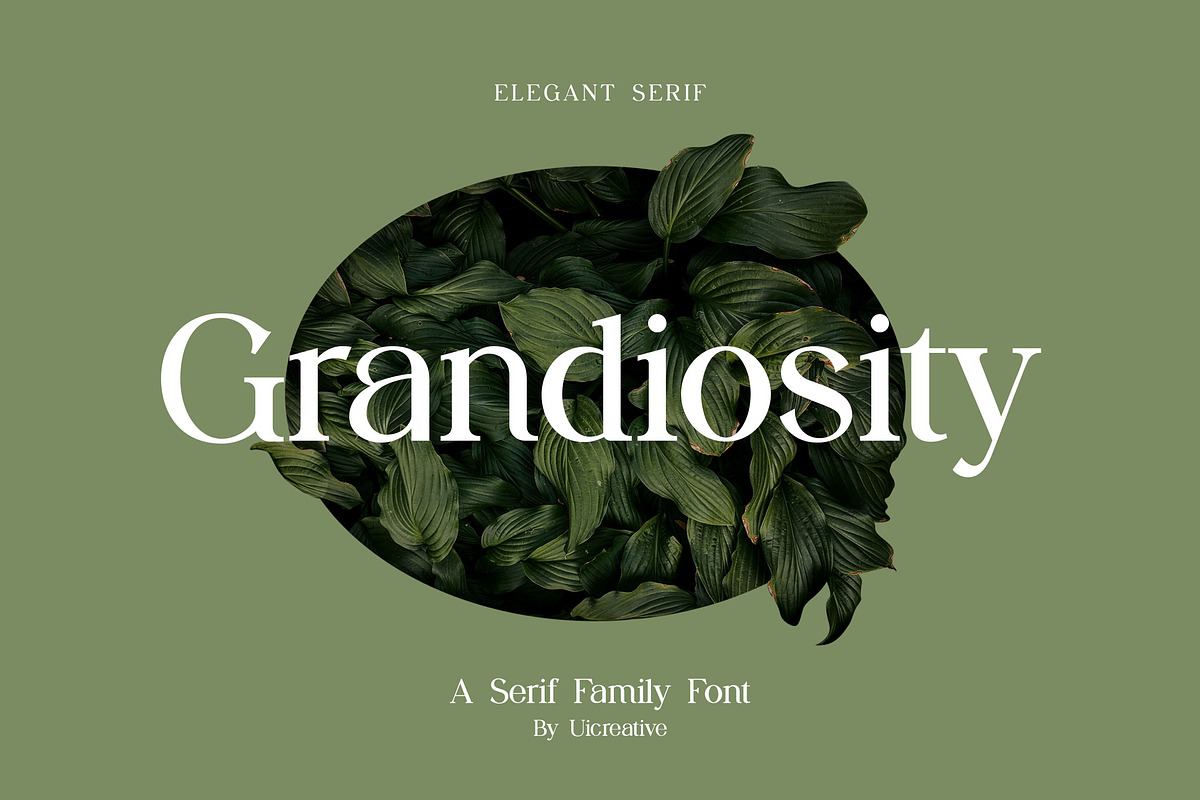
Grandiosity Elegant Serif Font Free Download
Grandiosity Elegant Serif Font Free Download is a luxurious and sophisticated serif typeface that brings timeless elegance to your designs. With its refined serifs, high contrast strokes, and balanced letterforms, Grandiosity is perfect for upscale branding, editorial layouts, invitations, packaging, and luxury websites.
Its classic yet modern design allows it to work beautifully in both print and digital formats, adding a polished and professional look to any project. Whether you're working on a high-end magazine spread or an elegant logo, Grandiosity adds a sense of prestige and style to your typography.